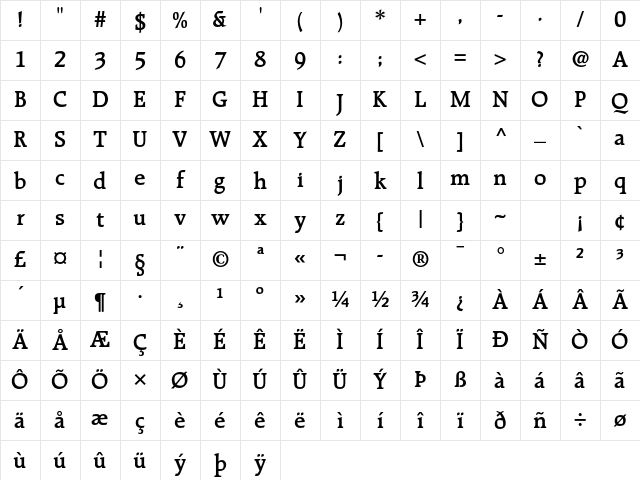
Raleigh LT Std Demi
Style: Demi
Designer: Robert Norton
Design Context for Raleigh LT Std
Raleigh LT Std is a composed and adaptable typeface that performs quietly and consistently across a wide range of design contexts. Its slender proportions lend an understated elegance to any composition.